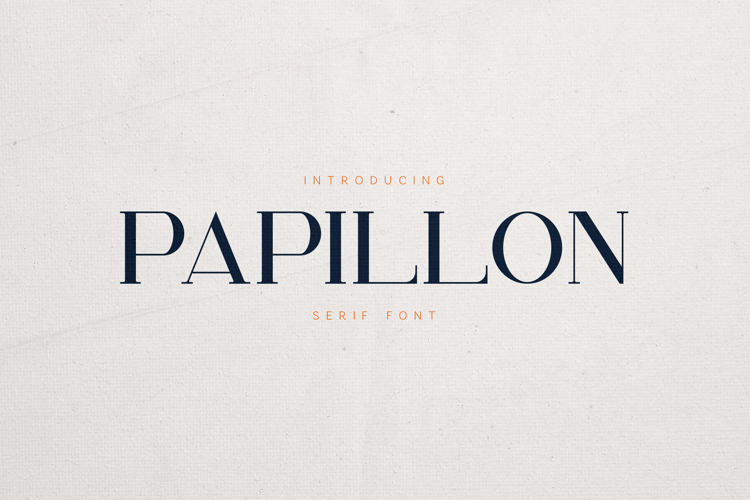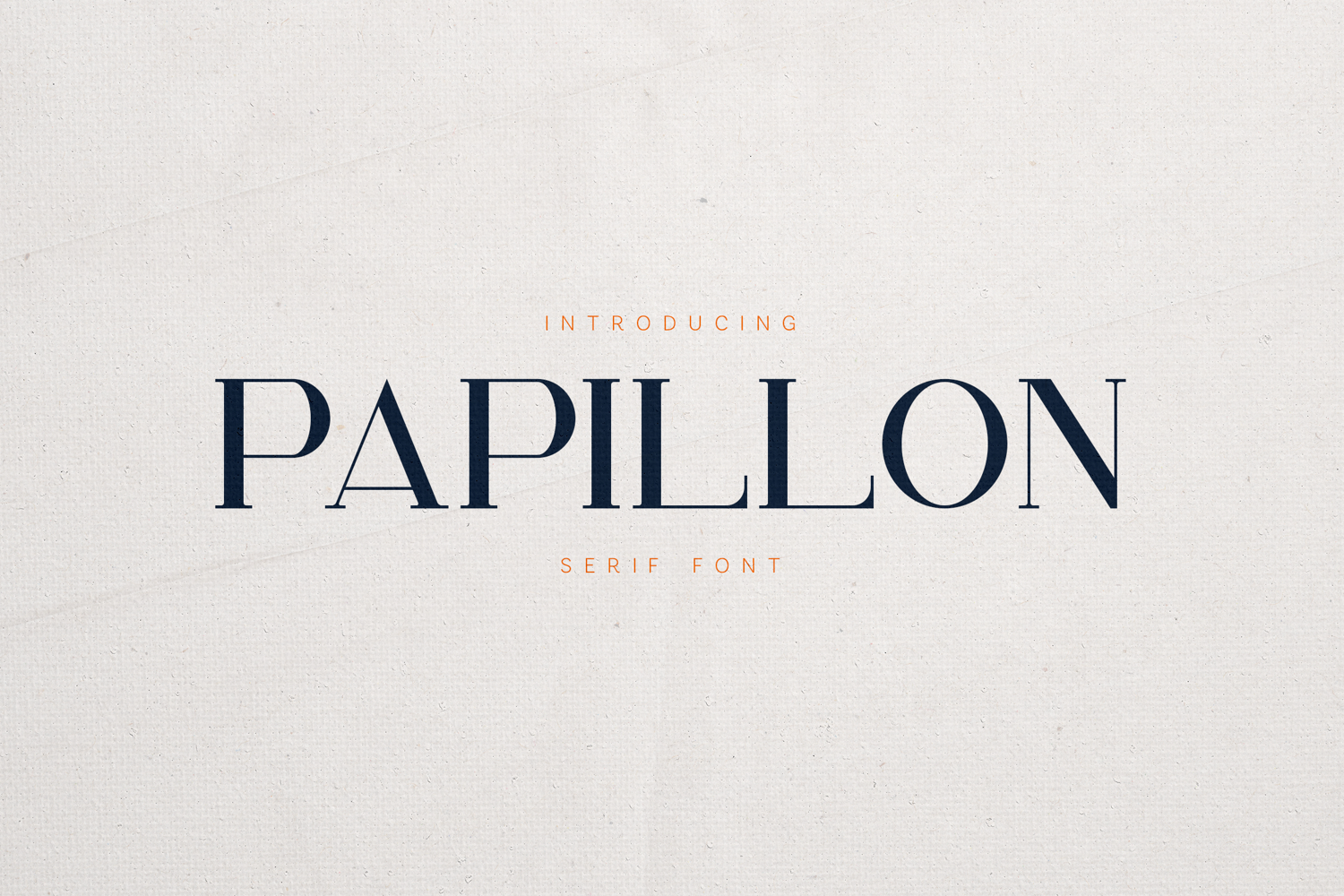
Papillon Serif Font Elegant Modern Editorial
Papillon is a refined modern serif font that blends elegance with subtle organic character. Designed for high-end branding and editorial design, it brings a sophisticated and timeless aesthetic to any project.
With its graceful contrast, stylish curves, and distinctive letterforms, Papillon is perfect for creating luxurious logos, fashion editorials, packaging, and premium visual identities. Its clean yet expressive design makes it highly versatile for both bold headlines and refined compositions.
Papillon is crafted for designers who want to deliver elegant, modern, and high-end typography.
• Elegant modern serif style